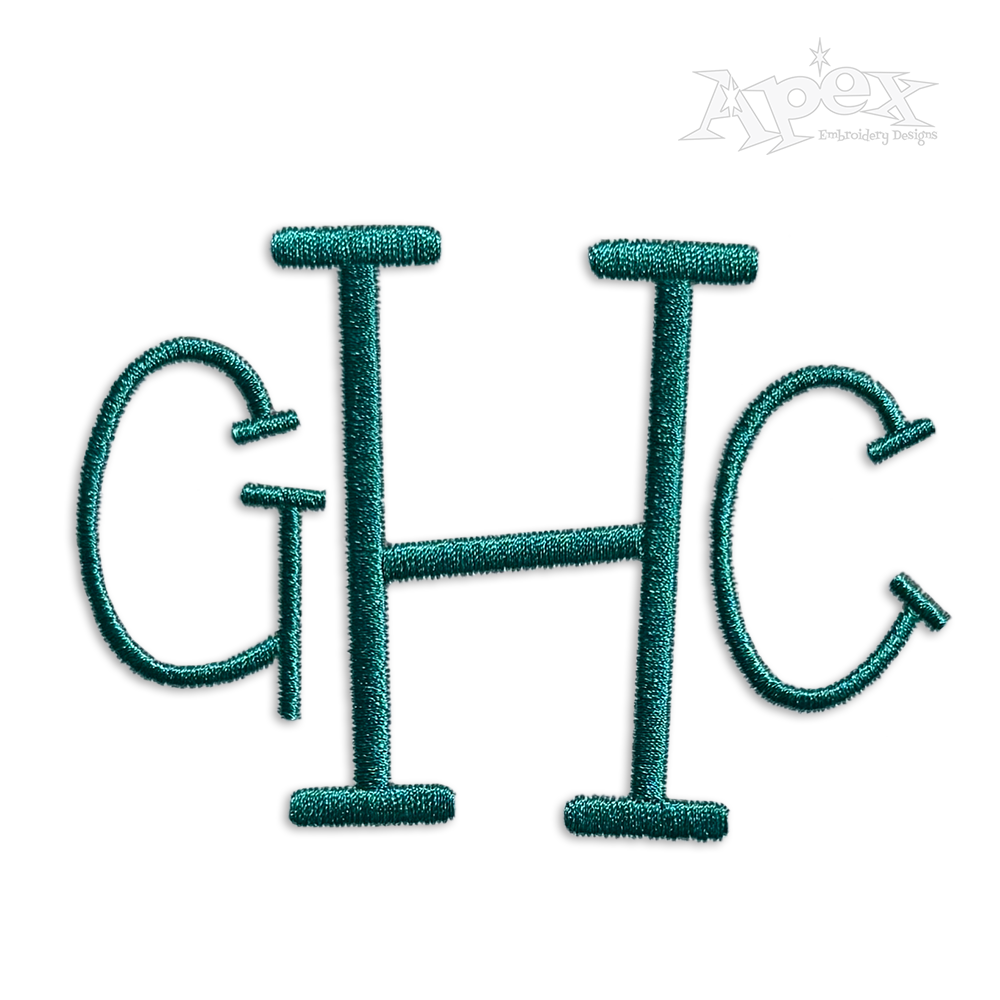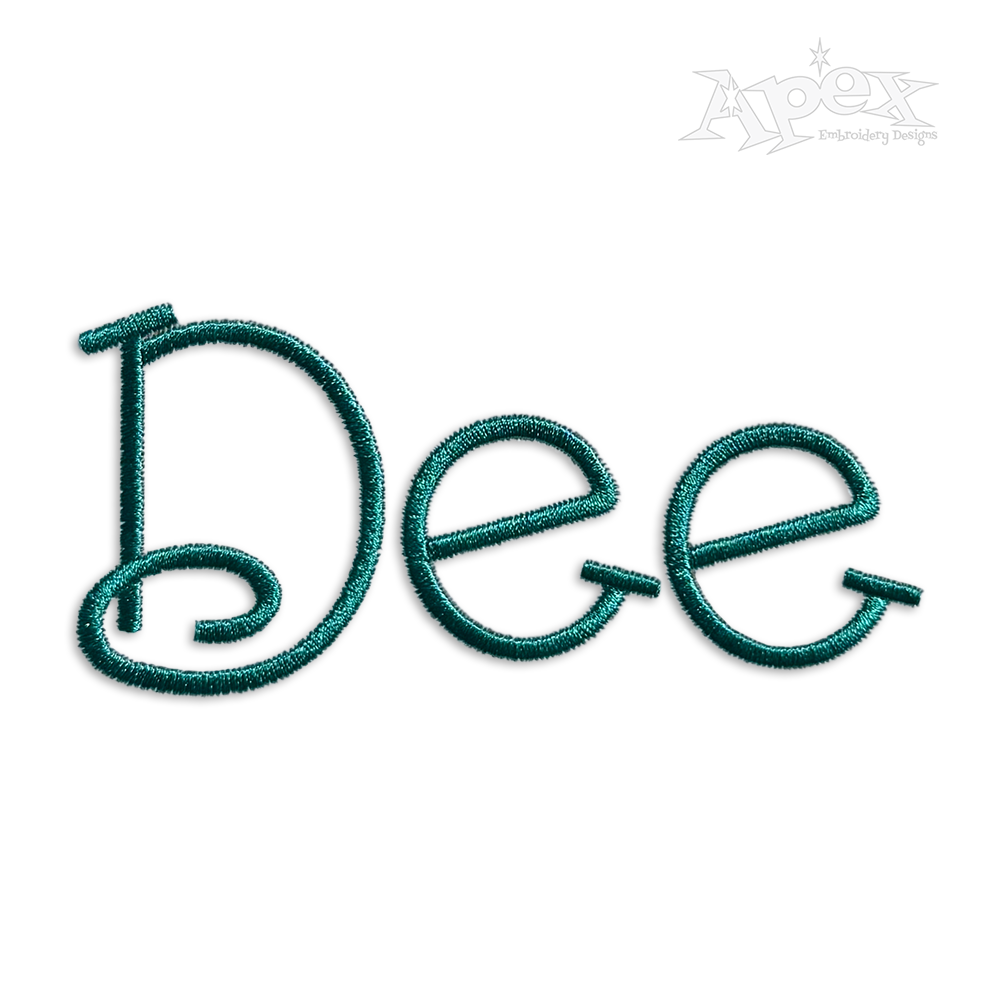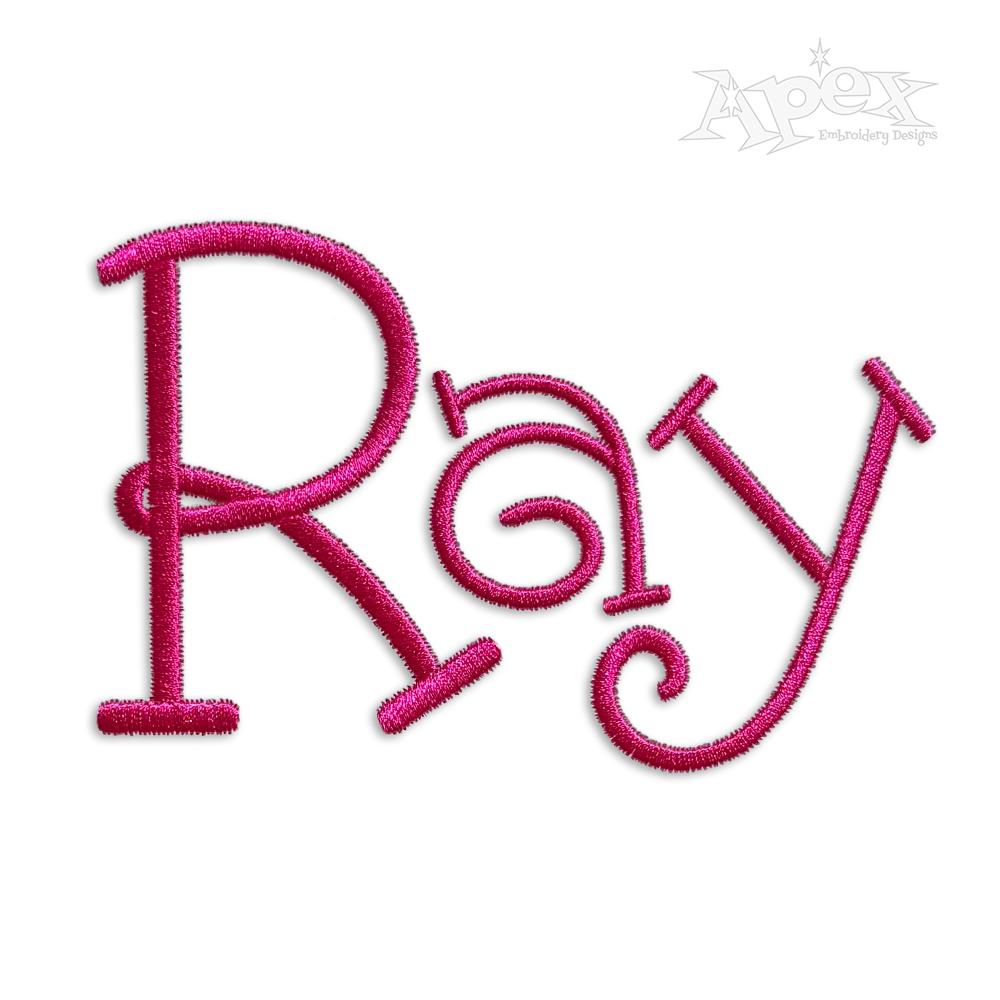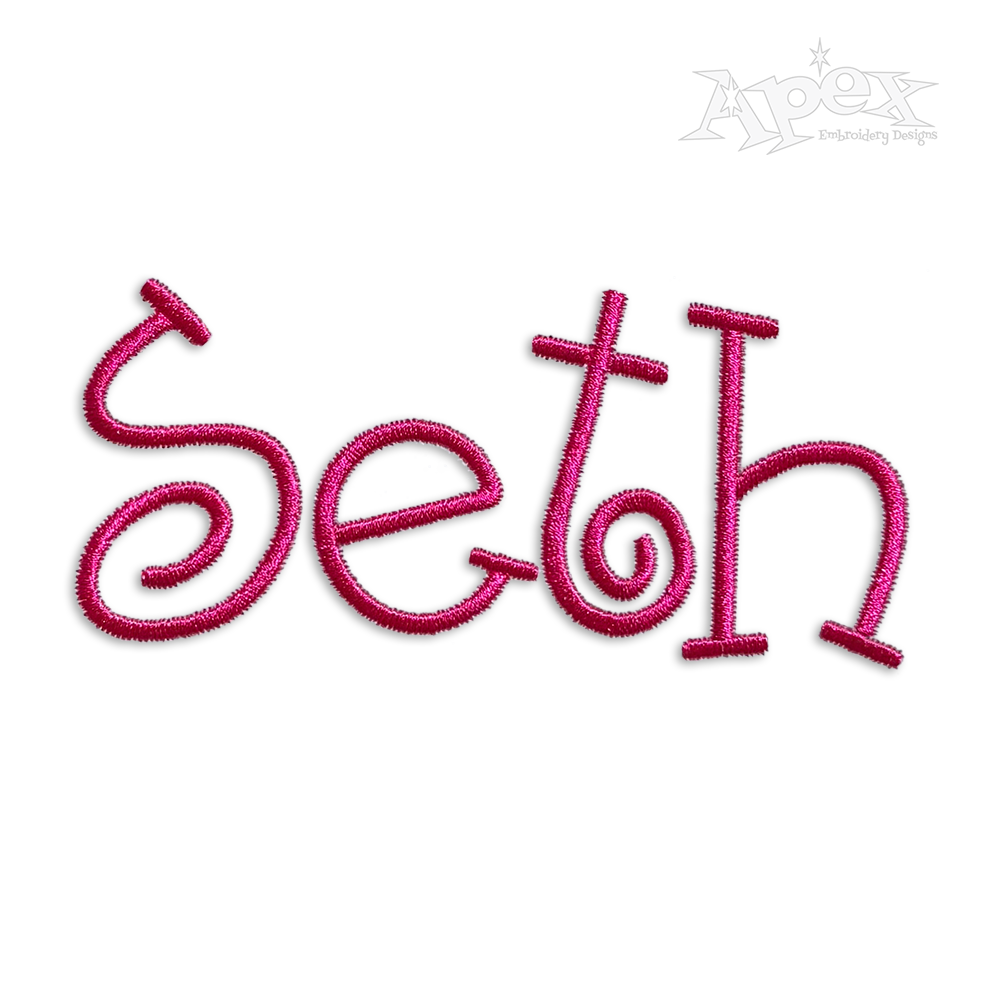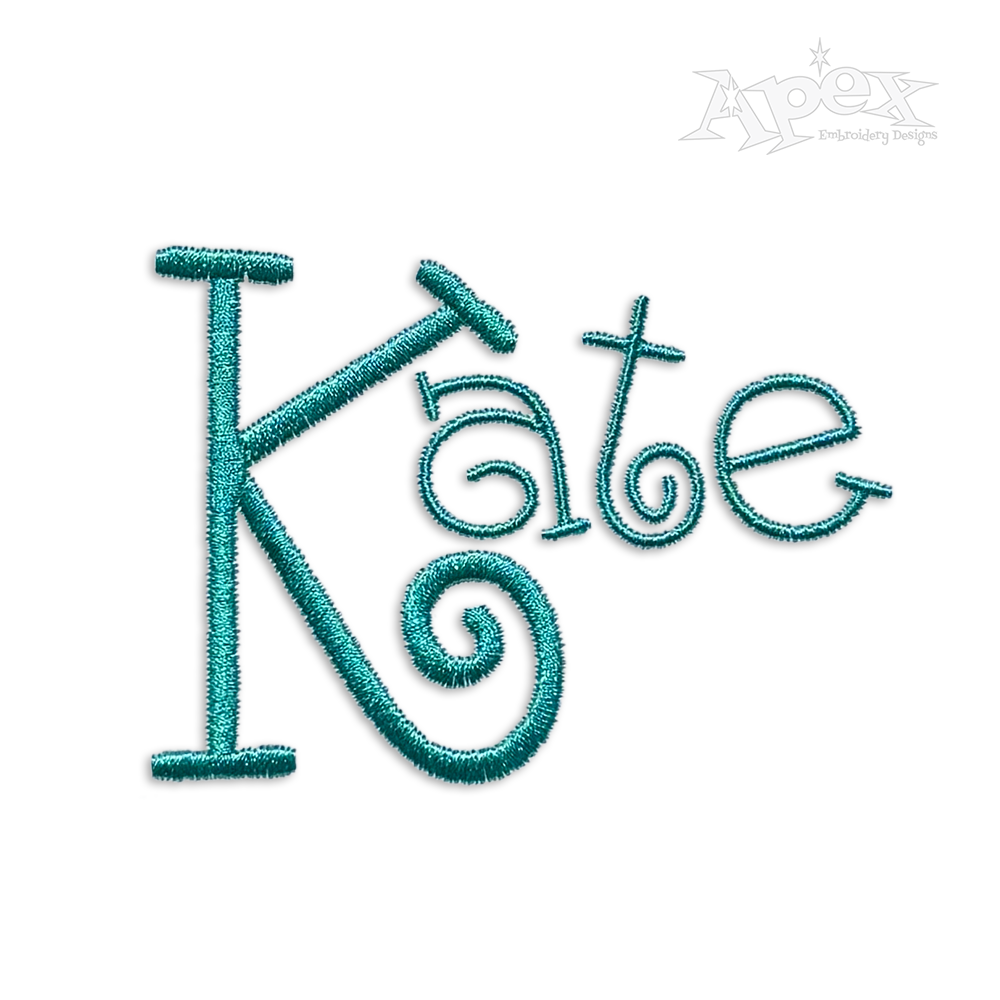
Swirl Fun Embroidery Font
There is an undeniable, infectious rhythm to letterforms that dare to dance, and our Swirl Fun embroidery font was born from that exact spark of celebratory delight. Envisioned as a spirited interplay between structured letter foundations and graceful, swirling ribbons, this design captures the pure joy of festive moments and whimsical tailoring. Digitized specifically as a two-color typography suite, it offers machine embroiderers the thrilling freedom to harmonize vivid contrasting threads or tone-on-tone jewel hues, breathing life and buoyant personality into every monogrammed stitch.
Swirl Fun Craft & Letterform Details
At the heart of the Swirl Fun font is an obsession with stitch choreography. Digitizing a two-color alphabet requires far more than splitting lines; it demands careful planning of stitch travel, underlay stability, and thread tension distribution. Each letterform is built with a dual-layer architecture: a crisp, solid foundational stroke embraced by whimsical, looping swirls that sweep effortlessly across each character.
Every swoop and counter-curve has been manually digitized with variable-angle satin stitches that catch the natural sheen of rayon and polyester embroidery threads from every direction. We tailored the pull compensation meticulously so the two colorways join in snug, flawless registration without unsightly gaps or puckering fabric. From the graceful loop of the capital 'S' to the bouncy flourish of lowercase terminals, Swirl Fun turns thread into pure visual celebration.